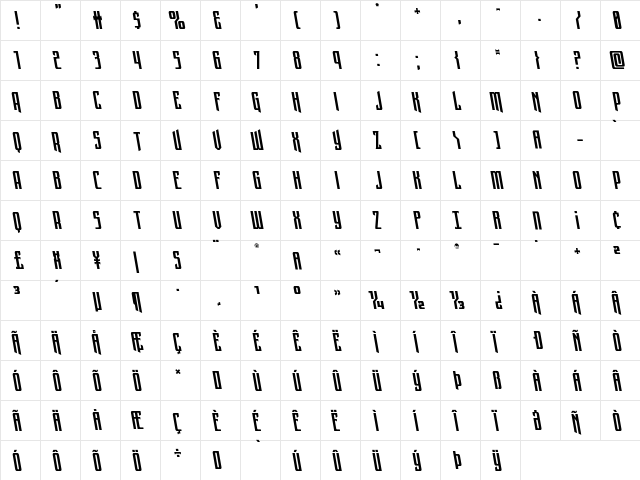
Night Traveler Leftalic Regular
Design Context for Night Traveler Leftalic Typeface
Night Traveler Leftalic is a composed and adaptable typeface that performs quietly and consistently across a wide range of design contexts. Its italic angle brings a sense of urgency and motion to the letterforms.
Pro Tip: Use Night Traveler Leftalic for emphasis, pull quotes, and subheadings where its slanted energy can add rhythm to the layout.